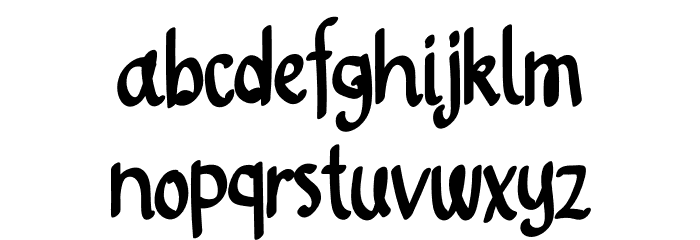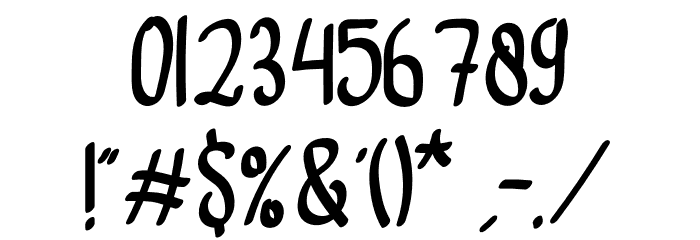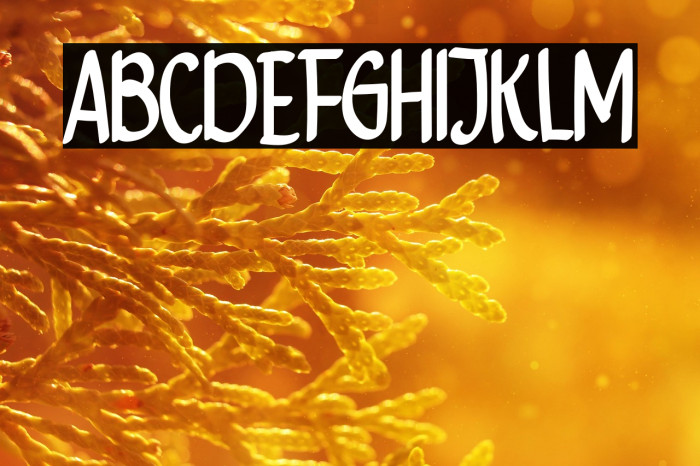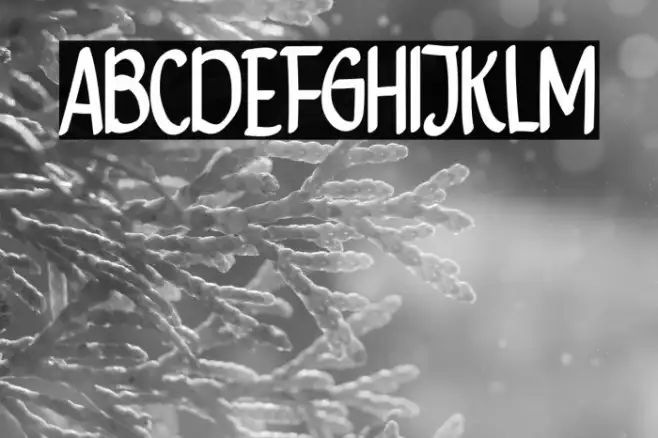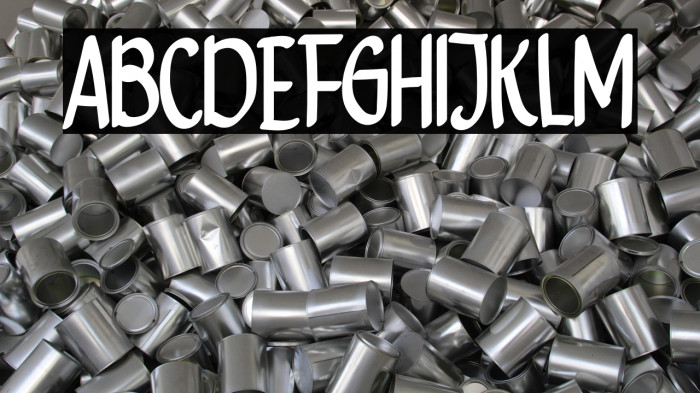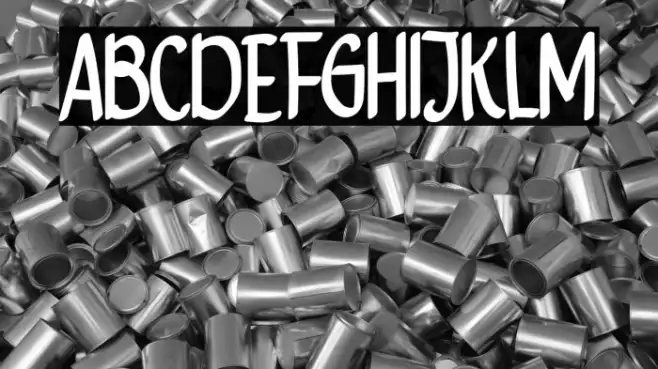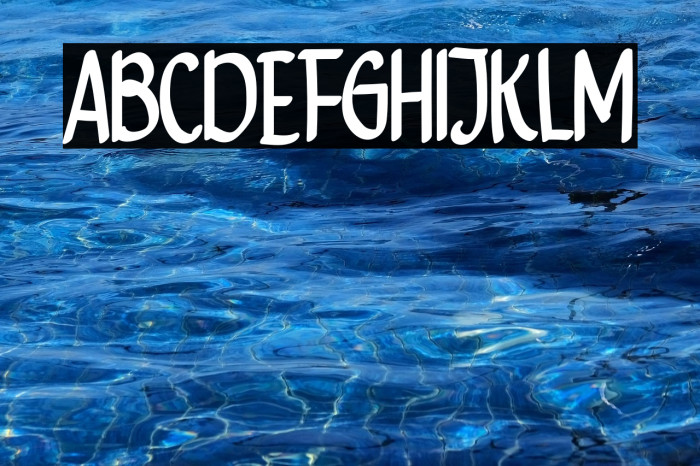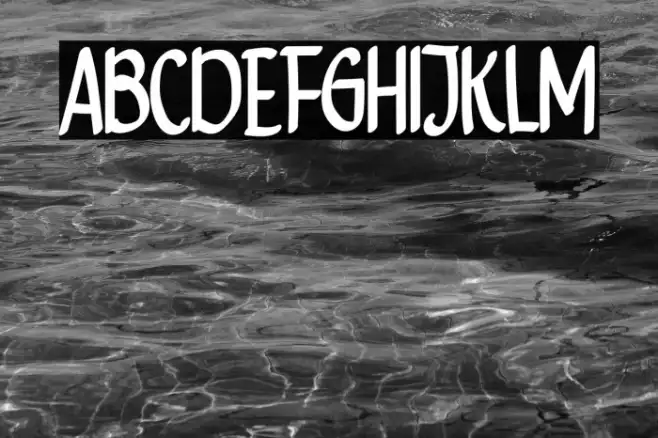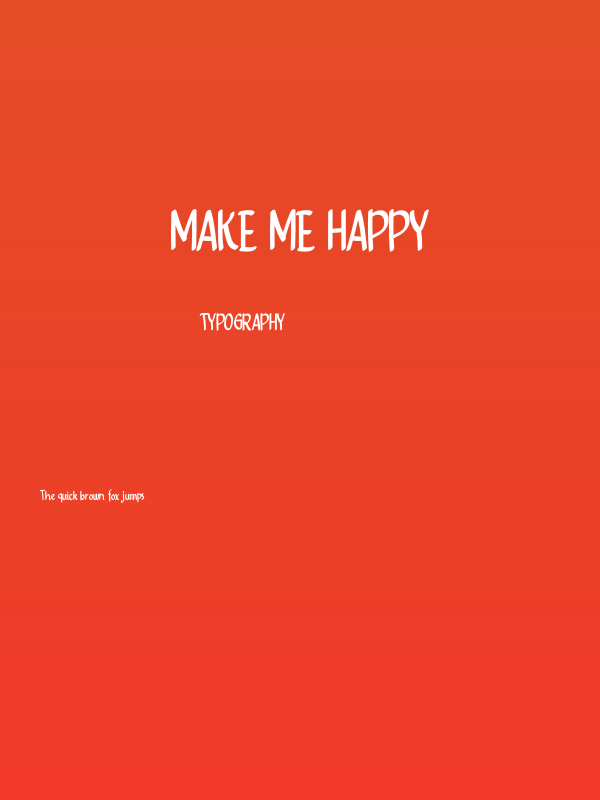
Make Me Happy Font
This playful and whimsical font features a handwritten style with a casual and friendly appearance. The characters are slightly rounded with a consistent stroke width, giving it a smooth and approachable feel. The uppercase and lowercase letters maintain a uniform height, contributing to its readability. The numbers and special characters are designed to match the playful nature of the alphabet, making it suitable for informal and creative projects. Its overall style is inviting and cheerful, perfect for designs that aim to convey warmth and personality.
- Font: Make Me Happy
- Proposed Projects: Ideal for children's books, greeting cards, playful branding, and social media graphics.
- Category: Handwritten
- Overall Style: Playful
- Use Case: Headlines, Logos, Informal Text